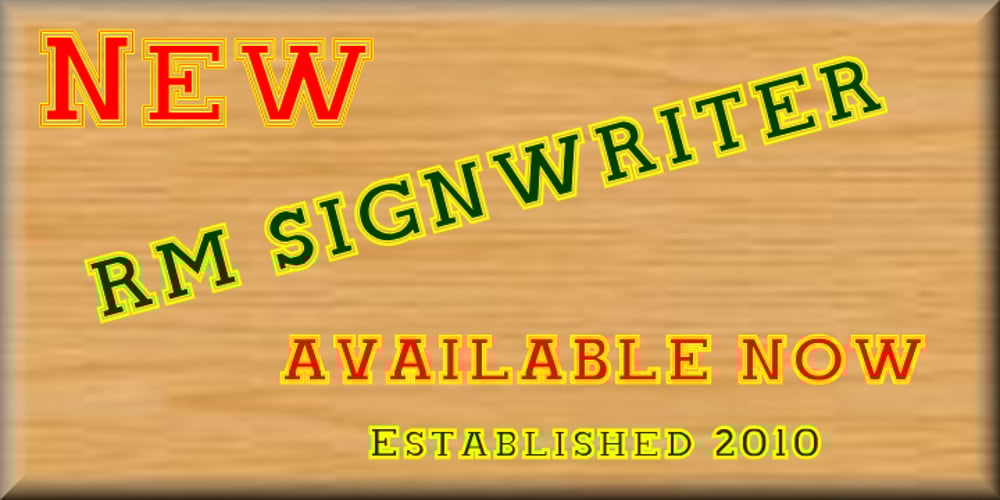
RM Signwriter Font Family was designed by Ray Meadows and published by Ray Meadows. RM Signwriter contains 1 styles and family package options. Inspired by the signwriting on traditional old canal boats in the UK, this bold, block serif design has many potential uses. Due to the modular nature of this design there may be a slight lack of smoothness to the curves at very large point sizes (around 100 pt and above).